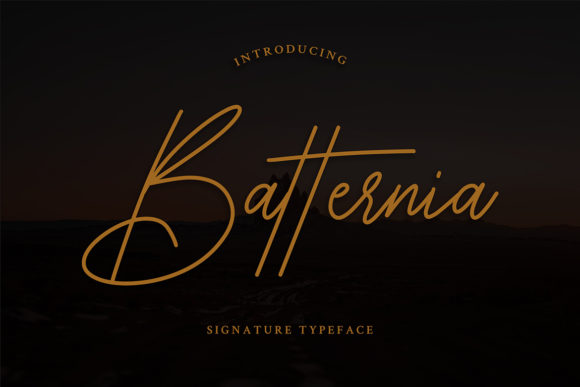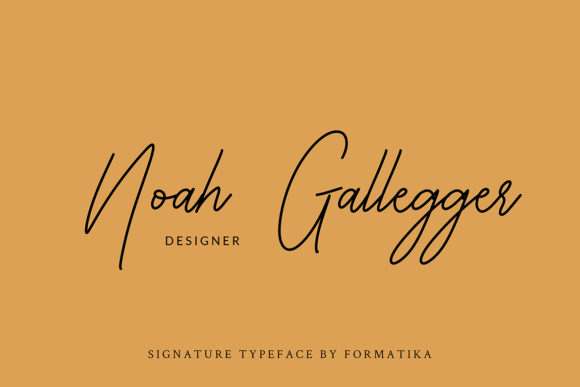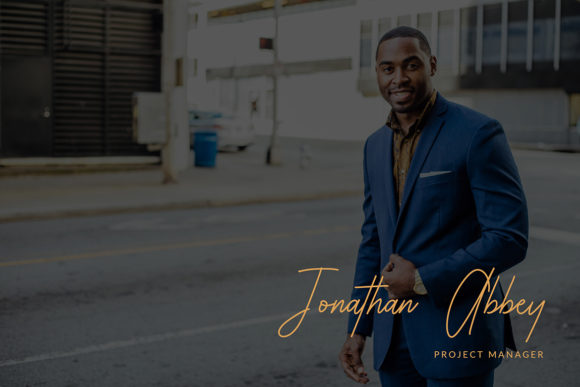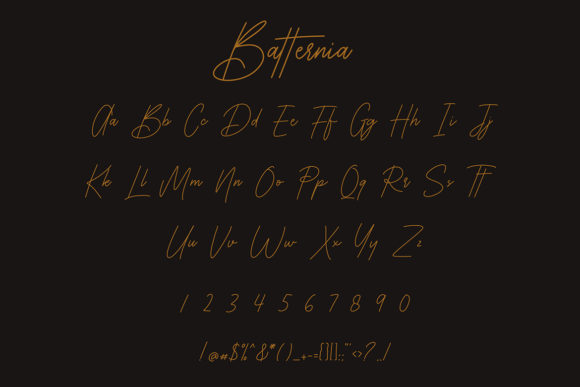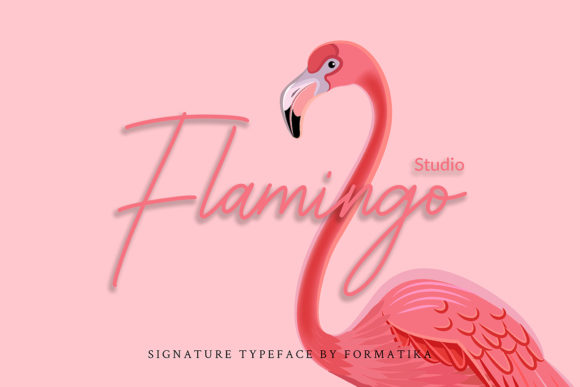
Batternia Font
About Batternia Font
Batternia is an exciting handwritten typeface with signature style. Fall in love with its authentic feel and use it to create gorgeous wedding invitations, beautiful stationary art, eye-catching social media posts, and cute greeting cards.